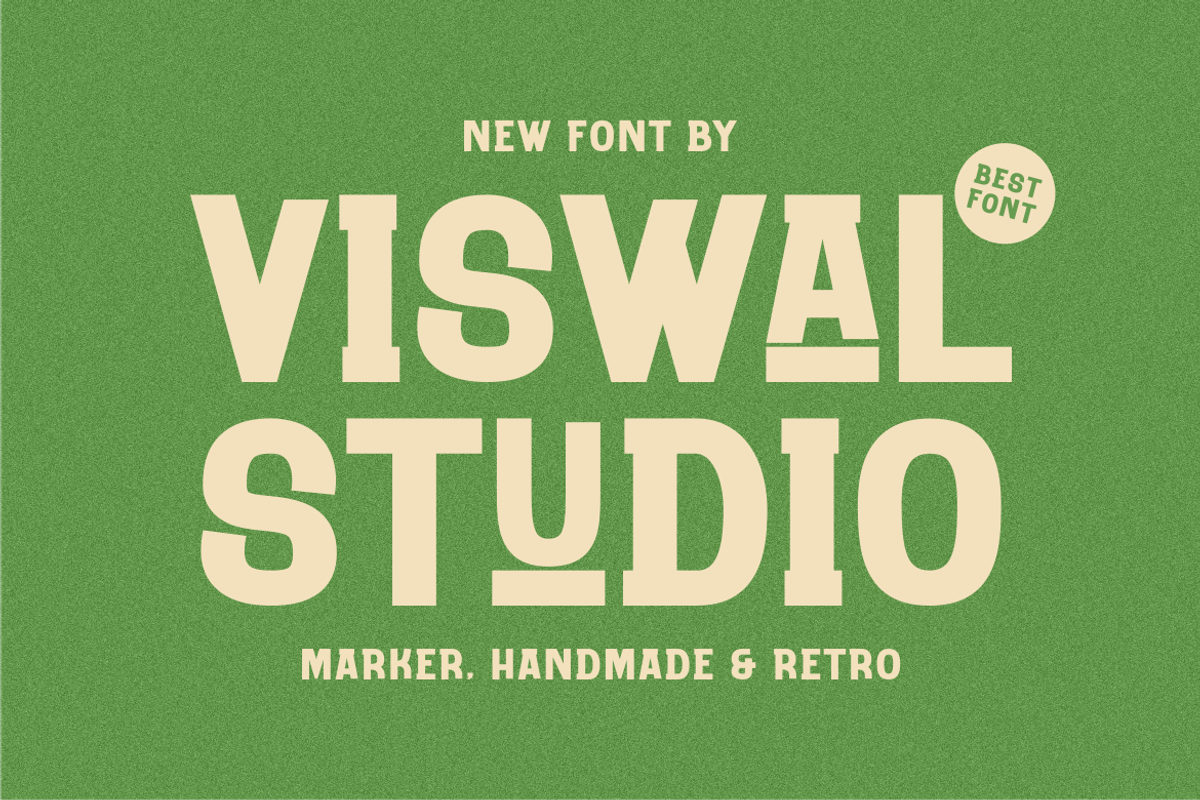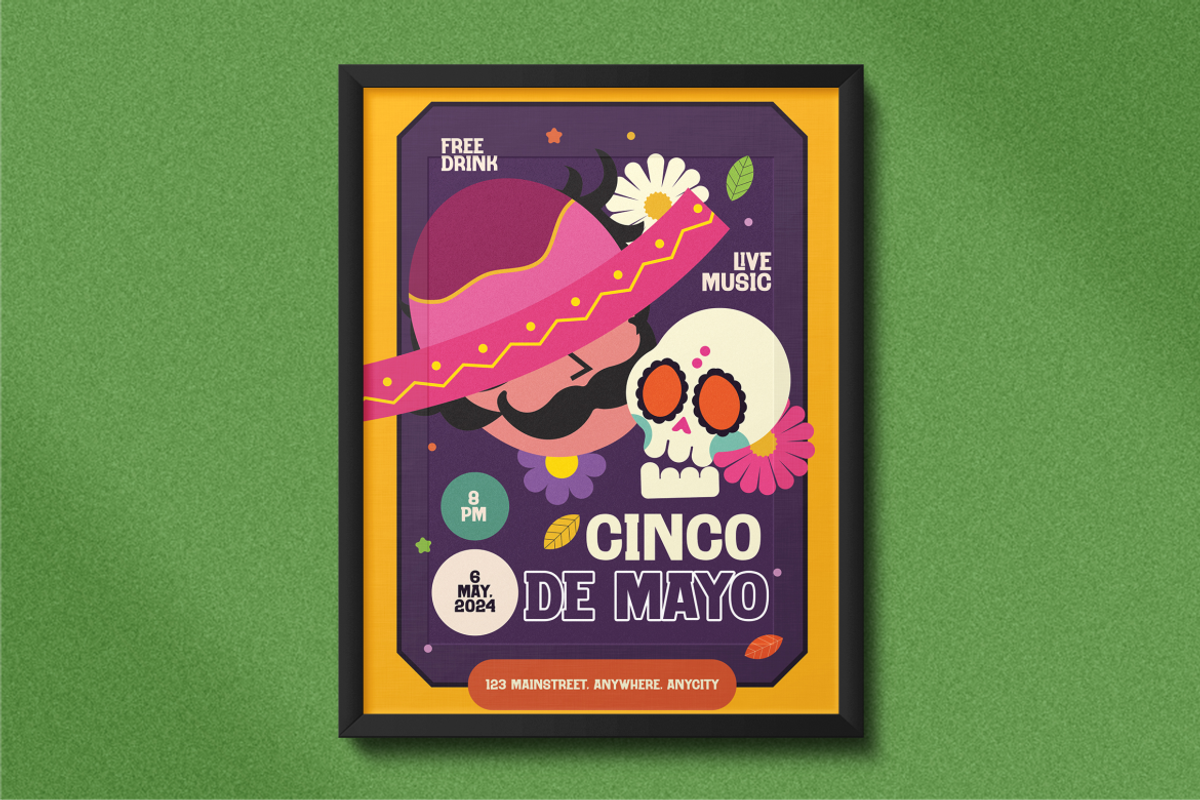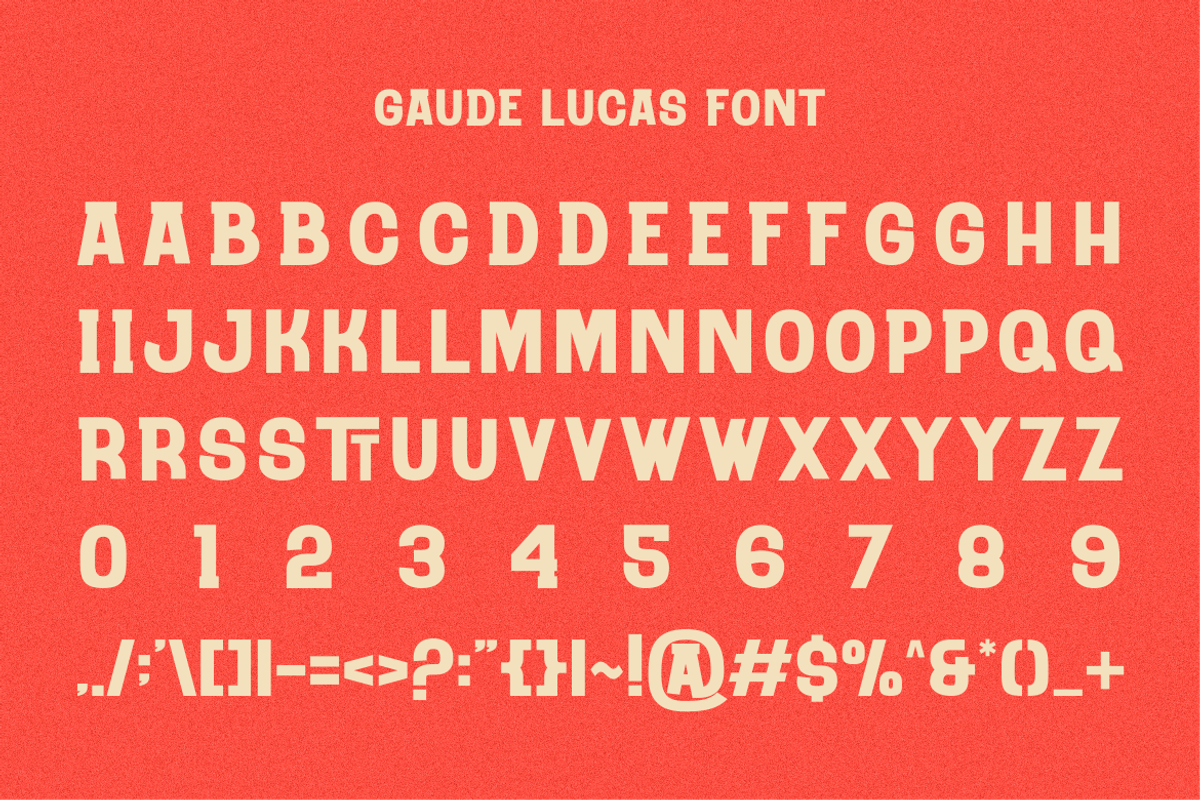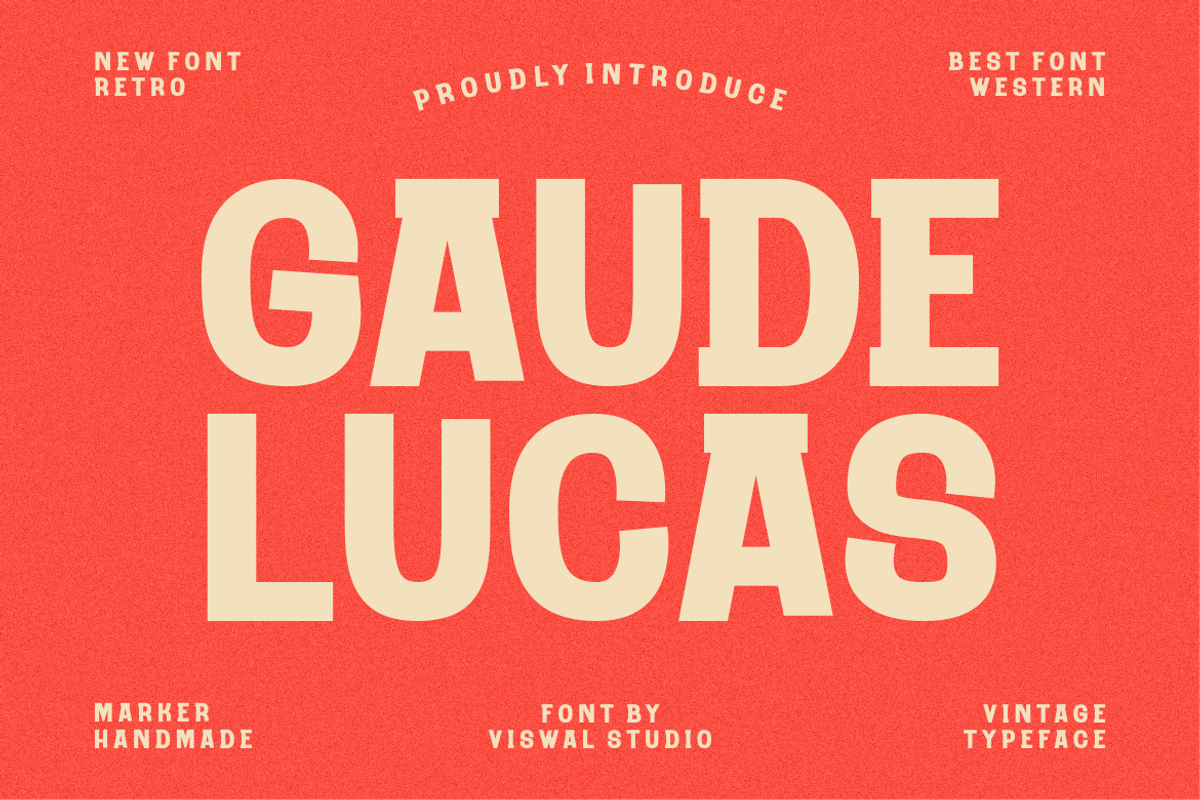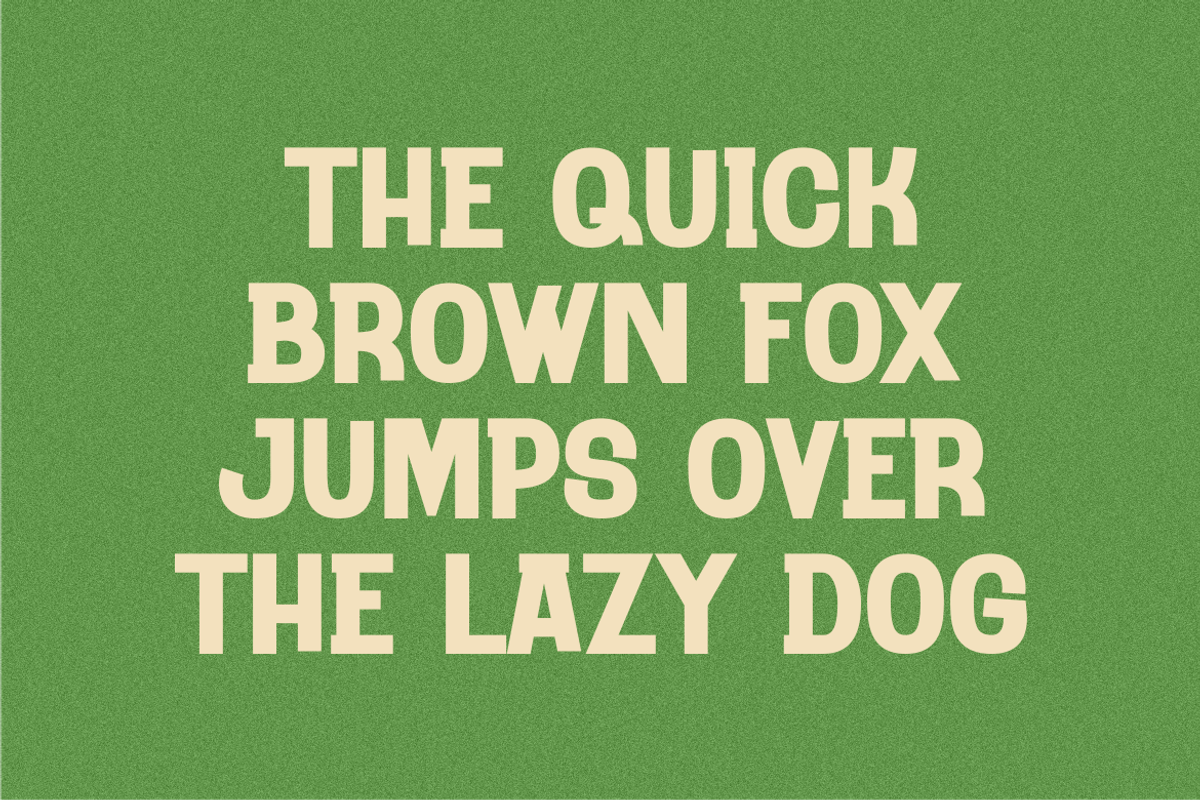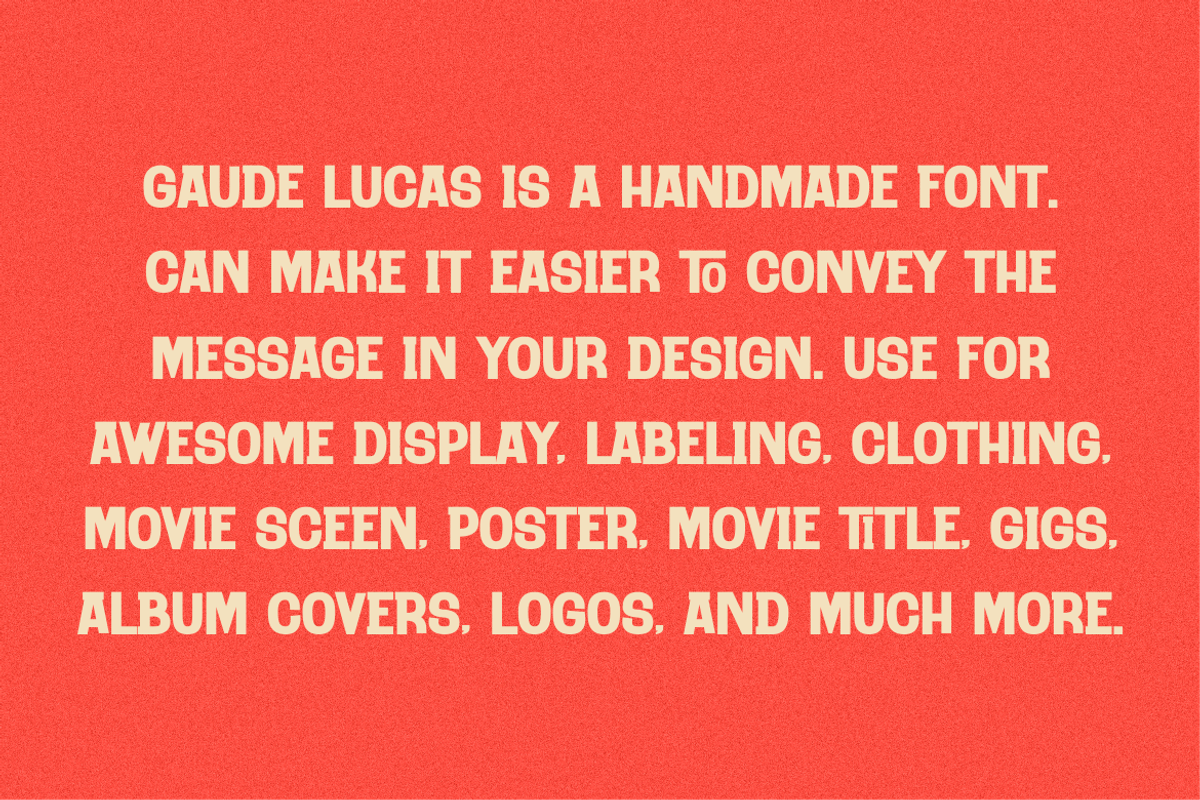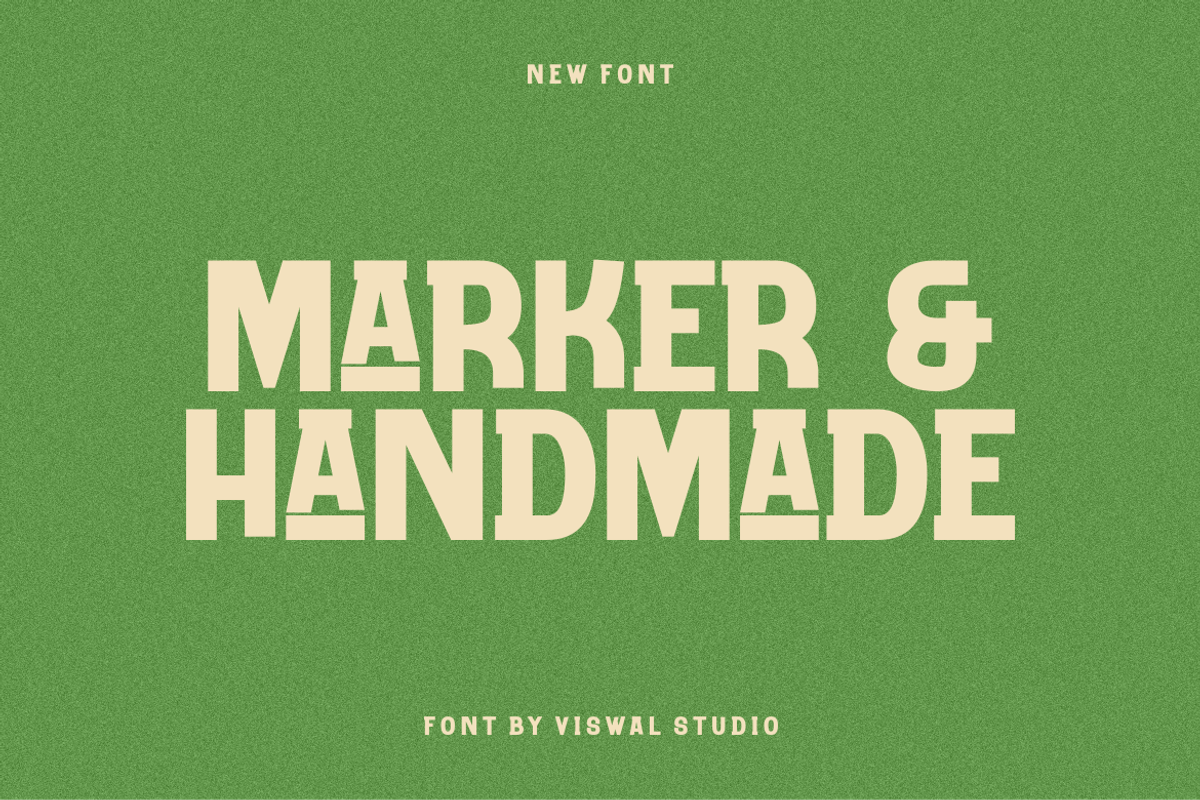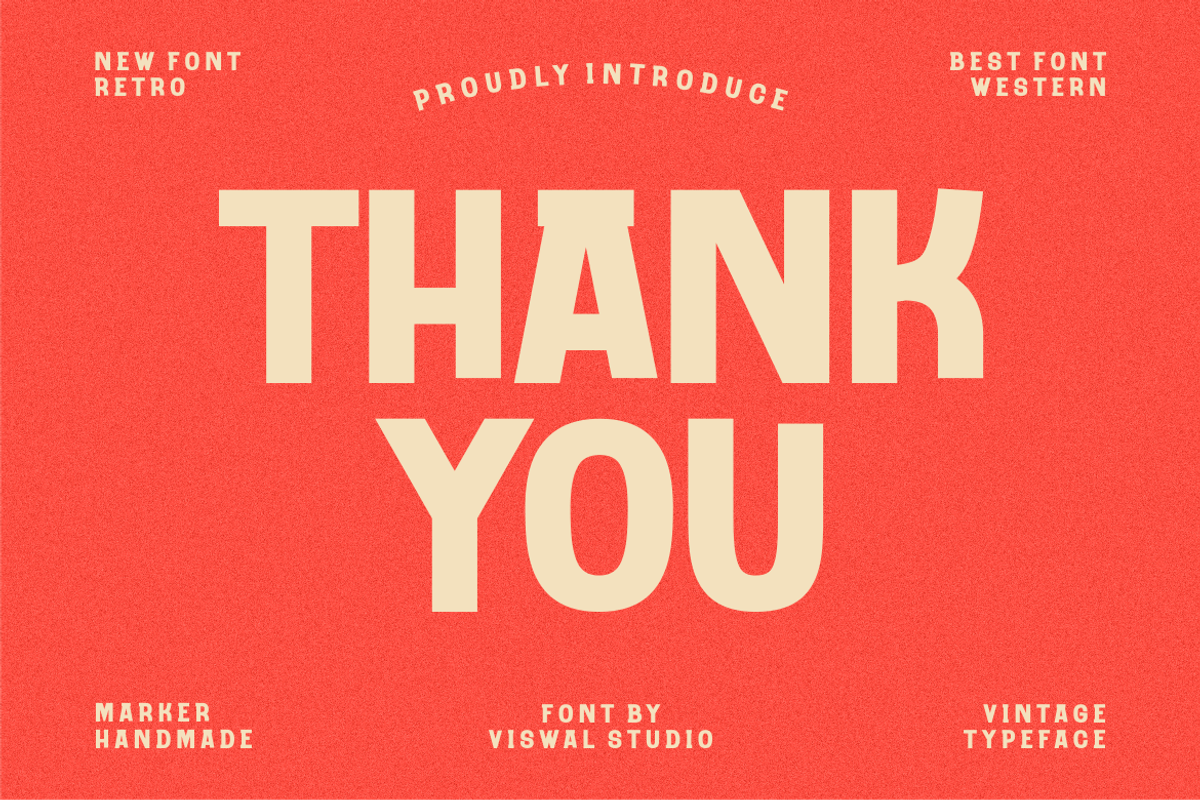
Gaude Lucas - Vintage Font
Presenting Gaude Lucas Is A Vintage Font
Can Make It Easier To Convey The Message In Your Design. Font Is Suitable For Logo, Labels, Badge, Branding, Magazine, Poster, Title, Gigs, Covers And Etc. Our Fonts Have Uppercase & Lowercase, Numeral & Punctuation, And Opentype Features. For Amazing Designs You Can Mix With Other Fonts As A Complement.